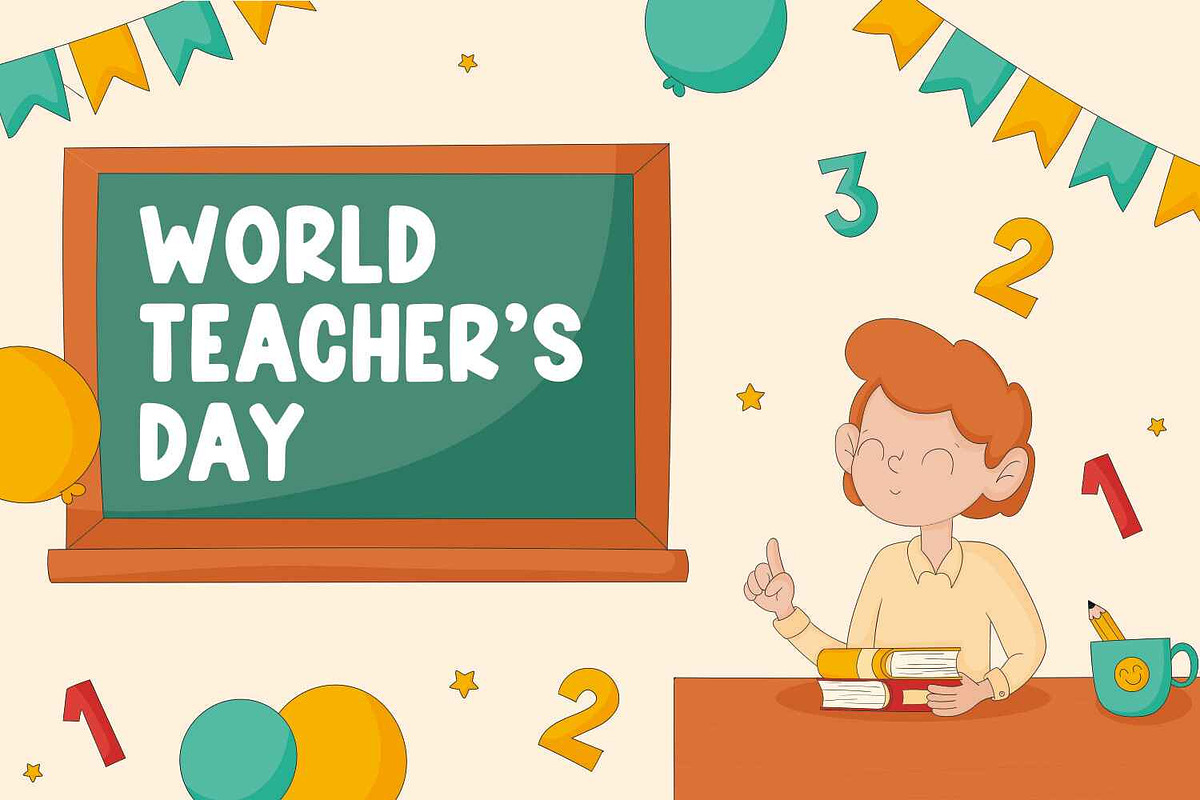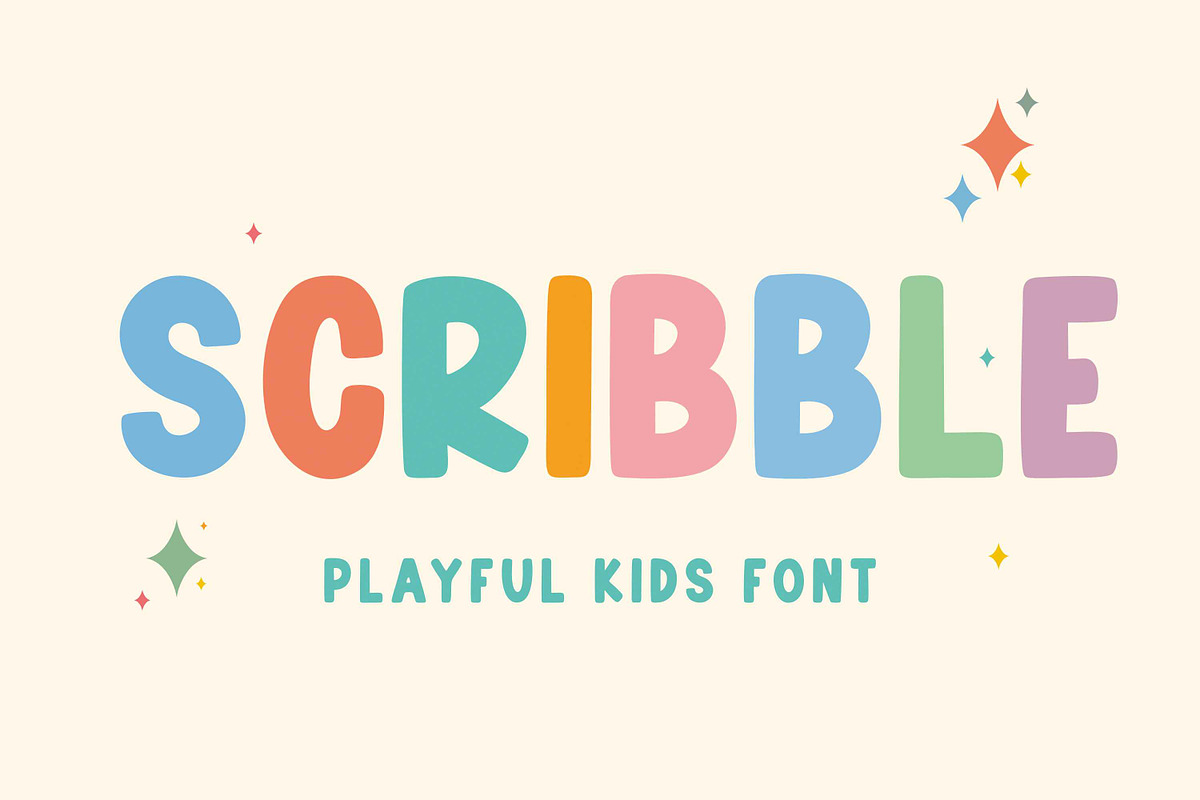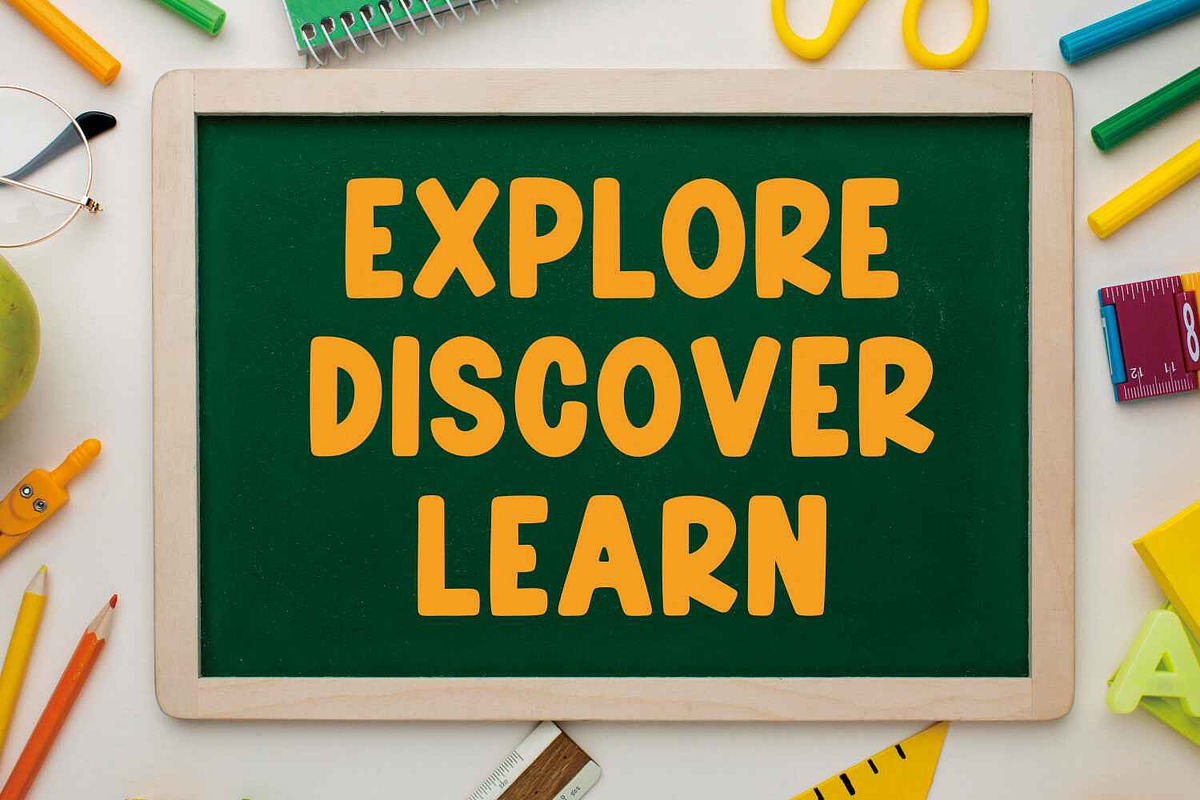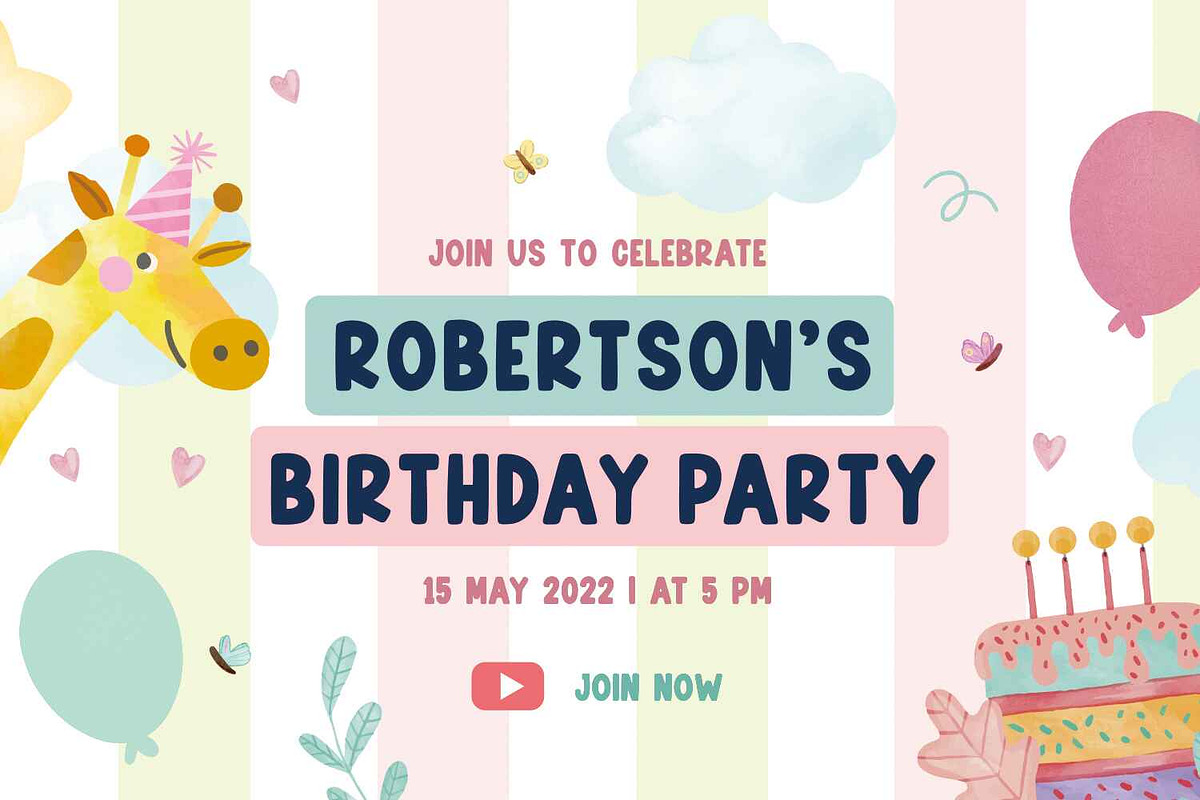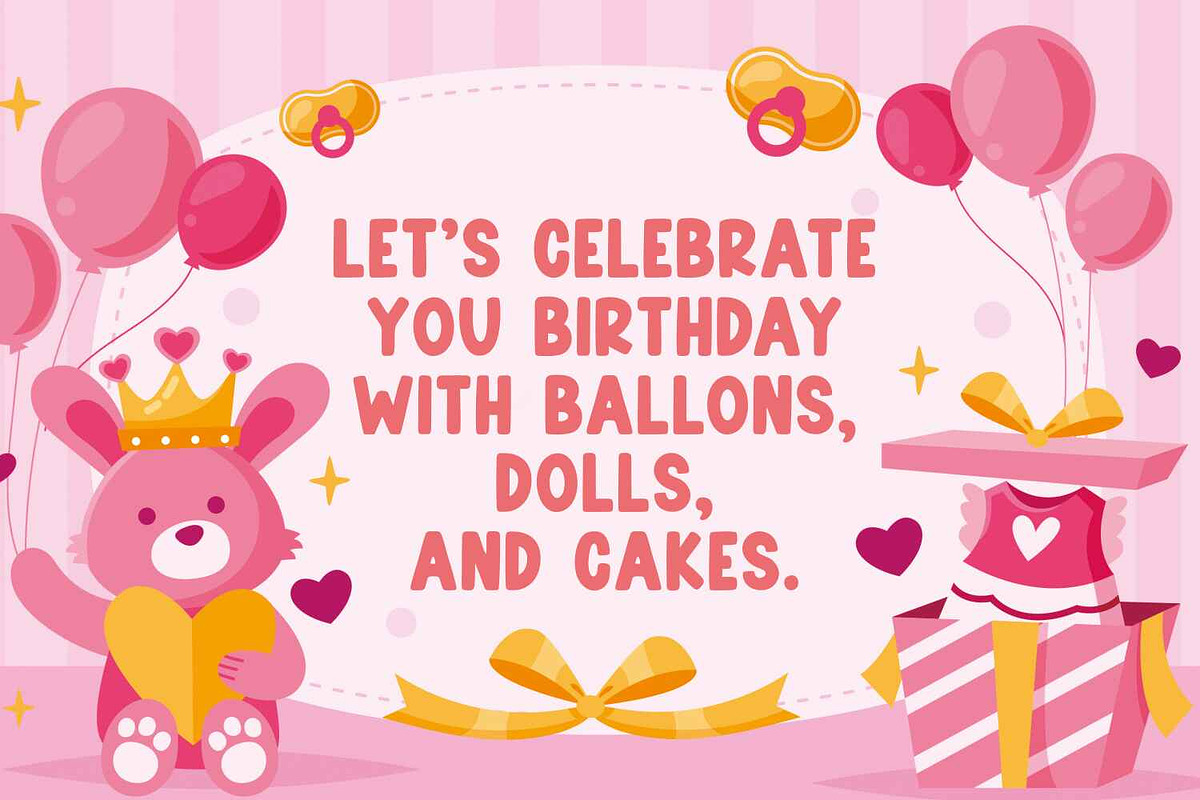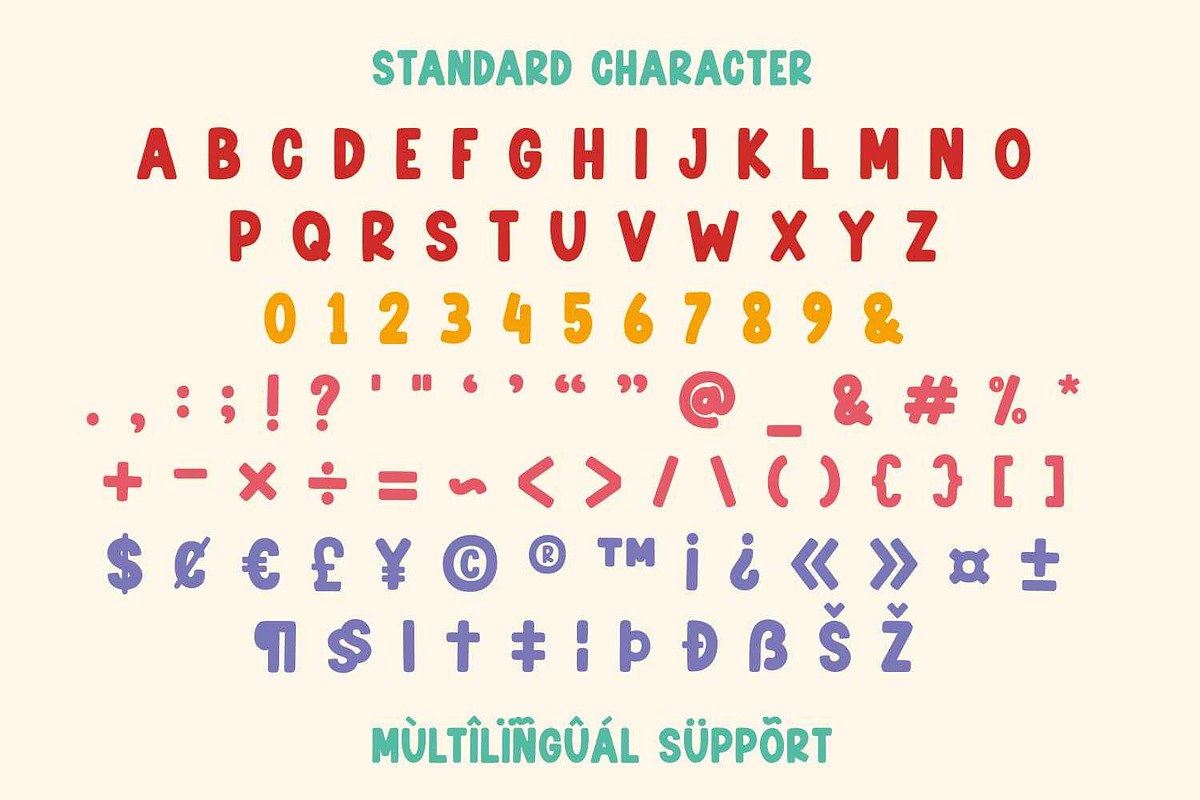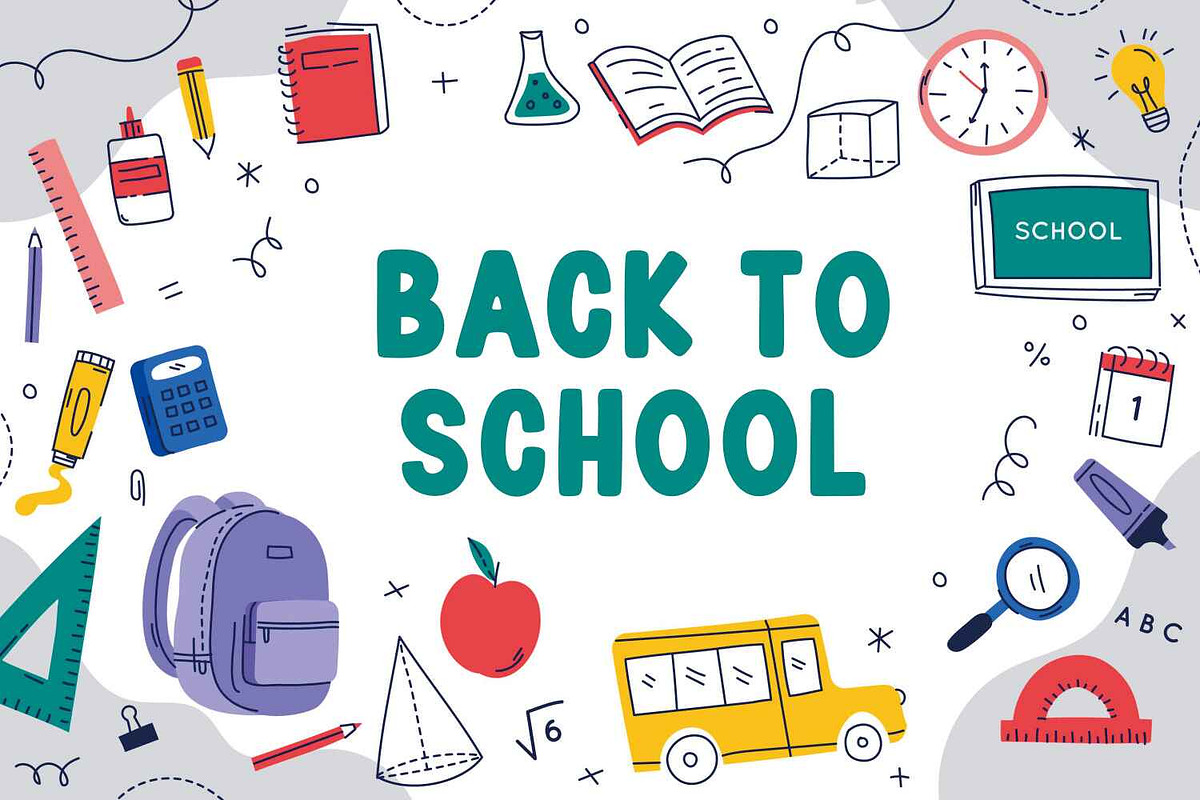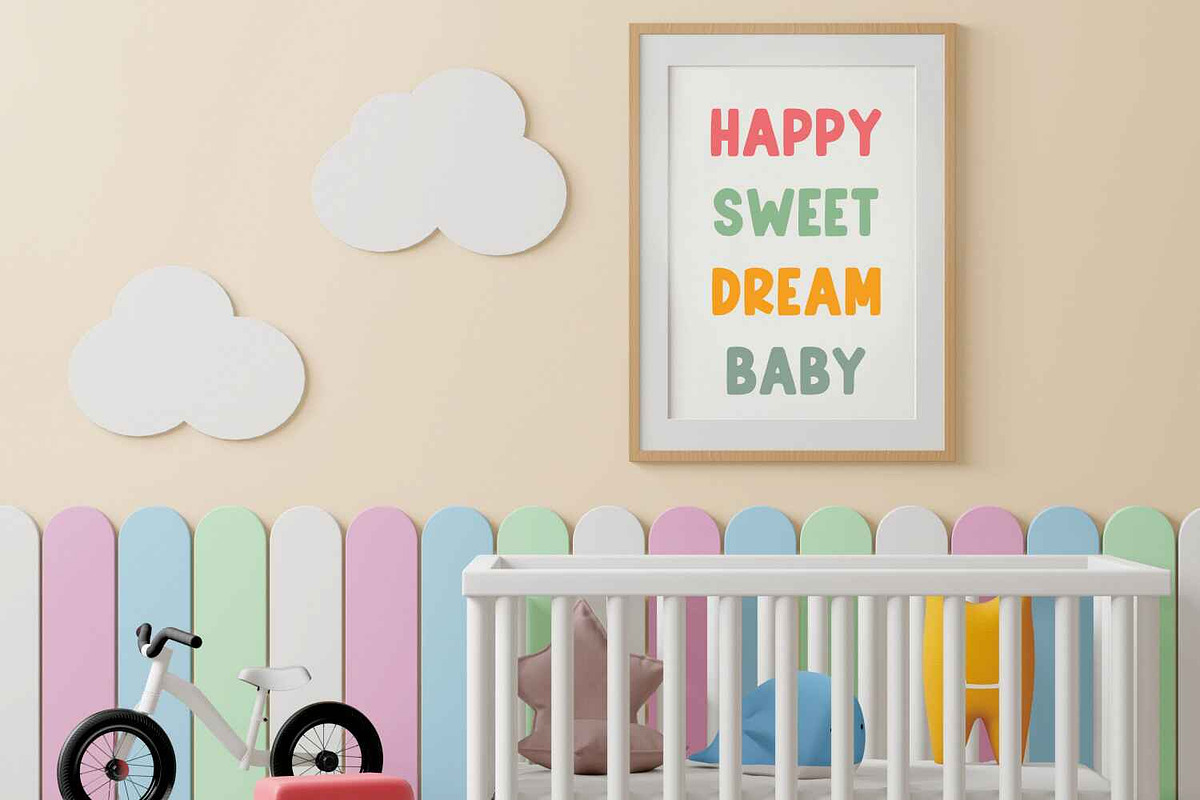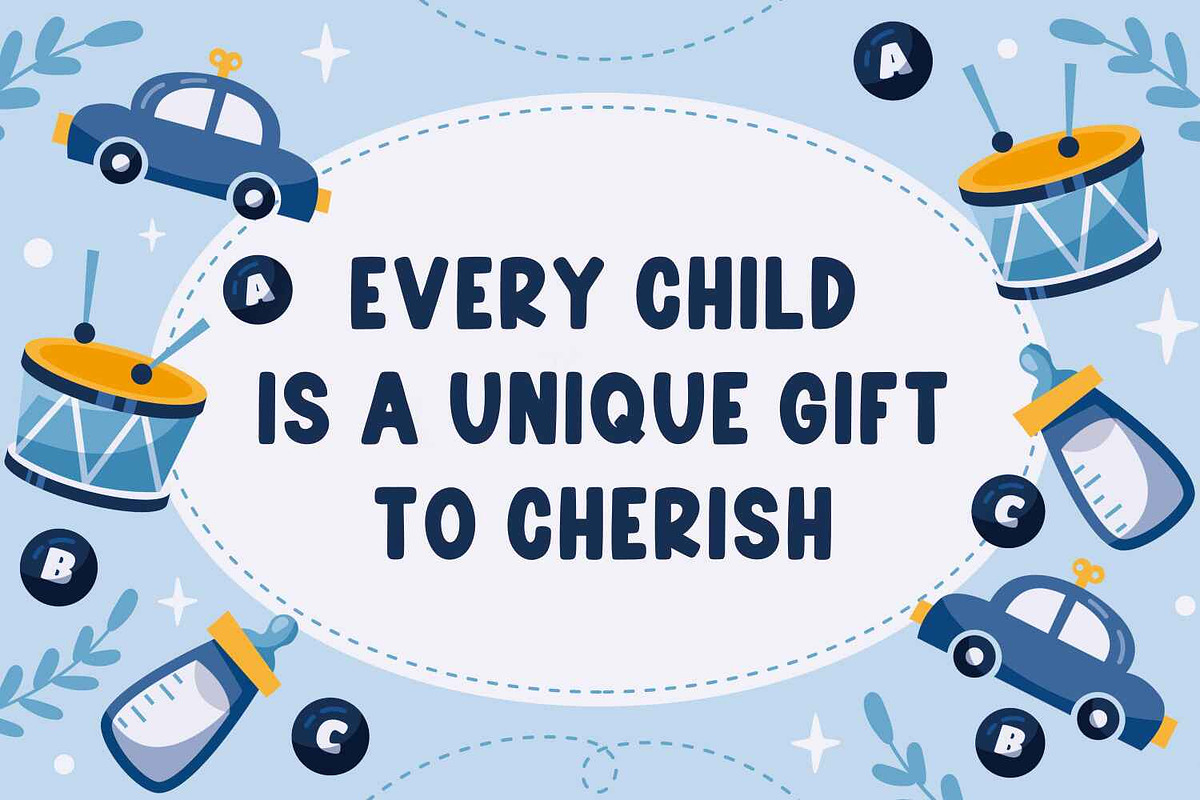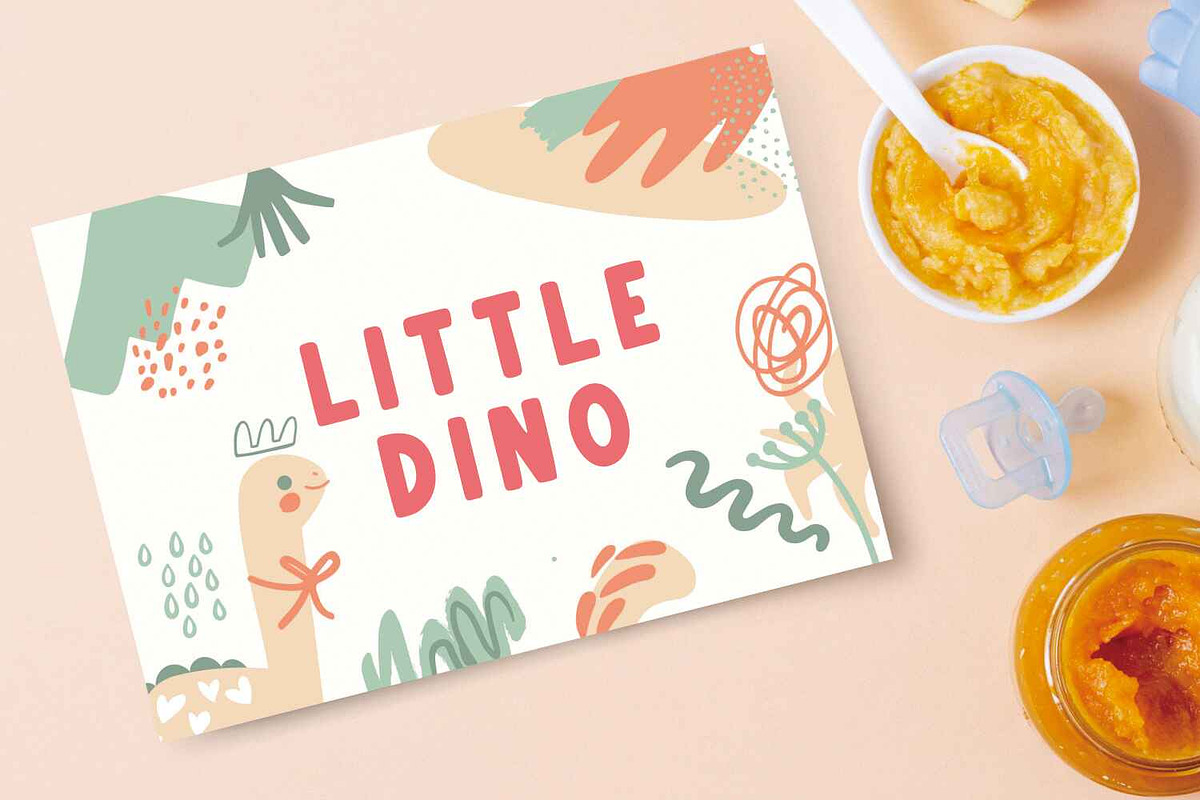
Scribble
Meet Scribble, a lively and playful handwritten font designed to capture the excitement of back-to-school season! With its fun, hand-drawn feel, Scribble is perfect for kids’ designs, educational materials, and anything that needs a touch of youthful energy. Each character is filled with the charm of spontaneous doodles, evoking the joy and creativity that come with new school supplies and fresh notebooks.
Scribble is perfect for creating vibrant back-to-school banners, classroom posters, and kids’ craft projects. Its irregular, sketched style adds a personal touch, making your designs stand out with a fun and approachable vibe. Whether you're making worksheets, school flyers, or children’s party invitations, this font delivers an engaging look that captures kids’ attention instantly.
This versatile font is also great for more than just school-themed projects. Use Scribble for kids' birthday cards, playful branding, and even children's books. Its handwritten aesthetic makes it feel welcoming and authentic, creating a fun atmosphere in any context. Scribble’s easy-to-read yet dynamic design ensures that it works beautifully in both print and digital formats.